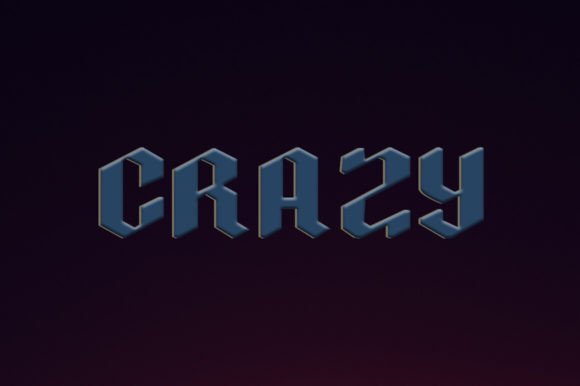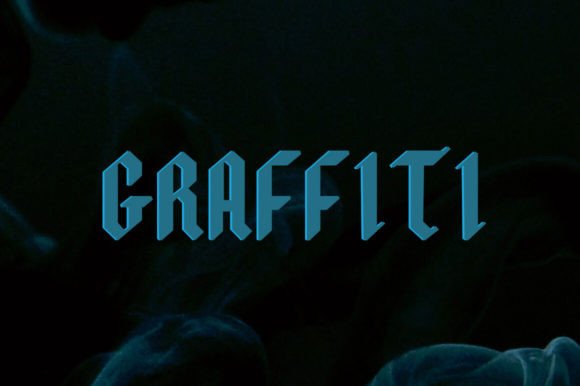
Cowboys Font: Unleash Your Creativity with a Bold Graffiti Style
Are you a designer or crafter looking for a font that can add a touch of edginess to your projects? Look no further than Cowboys Font, a bold and graffiti-style font that’s perfect for music posters, apparel designs, shirts, and streetwear. With its strong and powerful look, Cowboys Font is ideal for anyone who wants to make a statement and add a bit of attitude to their designs.
What is Cowboys Font?
Cowboys Font is a unique and stylish graffiti font that’s characterized by its bold and edgy look. The font features thick lines, sharp edges, and a rugged texture that gives it a distinctive streetwear feel. Whether you’re designing a music poster, a t-shirt, or a streetwear brand, Cowboys Font is the perfect choice for adding a touch of attitude and personality to your project.
Key Features of Cowboys Font
- Bold and Edgy Look: Cowboys Font features a bold and edgy look that’s perfect for making a statement.
- Graffiti Style: The font has a graffiti-style texture that gives it a unique and streetwear feel.
- High-Quality Design: Cowboys Font is designed with high-quality and precision, ensuring that it looks great in any size or resolution.
Uses of Cowboys Font
Cowboys Font is a versatile font that can be used for a wide range of projects, including:
- Music Posters: The font is perfect for music posters, flyers, and album covers.
- Apparel Designs: Cowboys Font is great for designing t-shirts, hoodies, and other apparel.
- Streetwear: The font is ideal for streetwear brands, sneakers, and accessories.
- Logos and Branding: Cowboys Font can be used for logos, branding, and advertising.
Benefits of Using Cowboys Font
Using Cowboys Font can bring several benefits to your designs, including:
- Adds Edginess: The font adds a touch of edginess and attitude to your designs.
- Stand Out: Cowboys Font helps your designs stand out from the crowd and grab attention.
- Versatile: The font is versatile and can be used for a wide range of projects.
- High-Quality: Cowboys Font is designed with high-quality and precision, ensuring that it looks great in any size or resolution.
Cowboys Font is a bold and graffiti-style font that’s perfect for designers and crafters who want to add a touch of edginess to their projects. With its strong and powerful look, Cowboys Font is ideal for music posters, apparel designs, shirts, and streetwear. Whether you’re a professional designer or a DIY crafter, Cowboys Font is a great choice for anyone who wants to make a statement and add a bit of attitude to their designs.